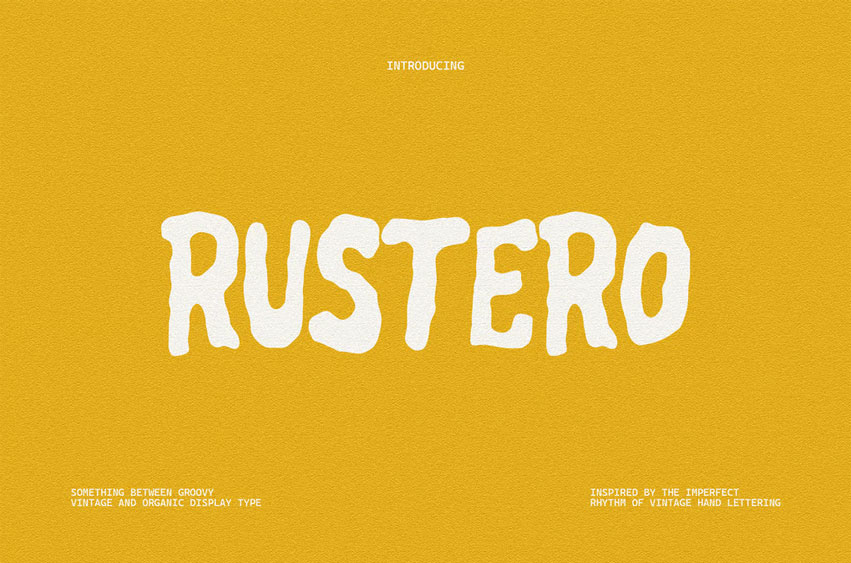
Rustero Vintage Font
Rustero Vintage Font is a display font designed with an organic rhythm and visual irregularity that mimics the flow of hand-drawn lettering. Each curve and contour is intentionally uneven, creating a tactile human quality that challenges the precision of digital typography.
The result is a typeface that feels alive, bold, playful, and deeply expressive.